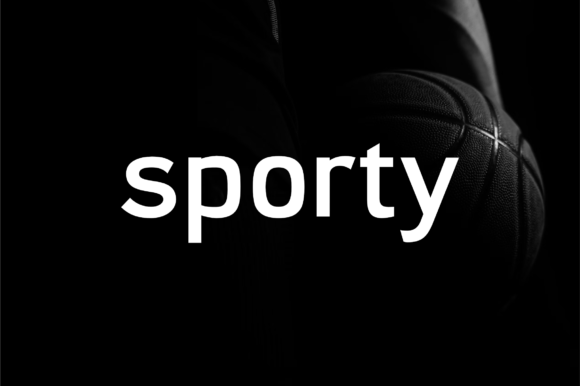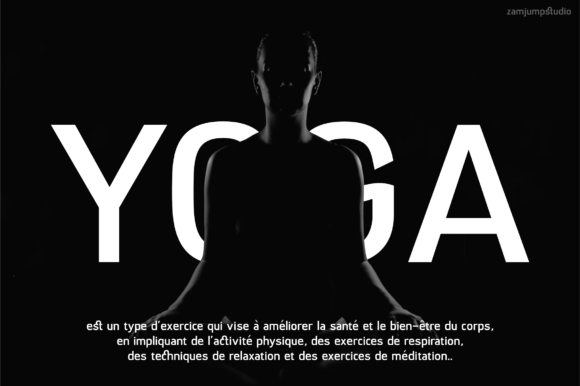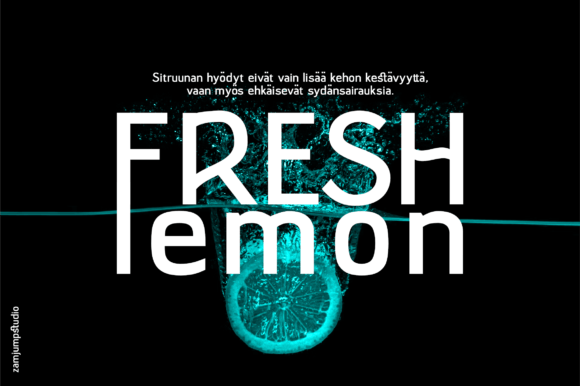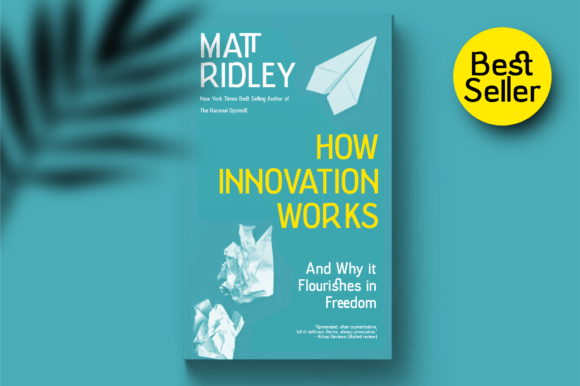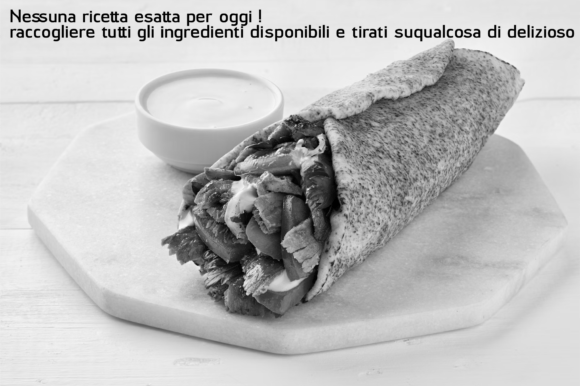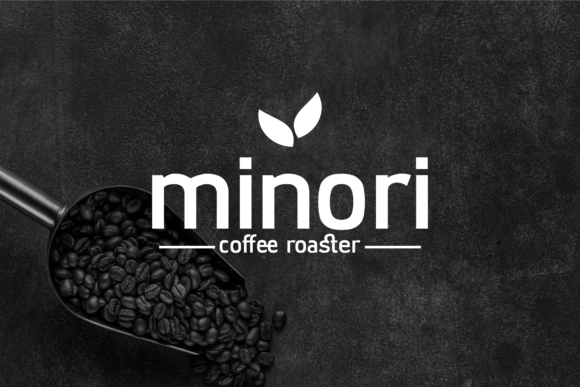
Bricensa Font: Elevate Your Design Projects with Modern Elegance
In the world of typography, a font can make all the difference in the success of a design project. A well-crafted font can elevate your brand, capture attention, and convey your message with precision. Introducing Bricensa, a sophisticated modern sans serif display font designed to bring a perfect blend of contemporary aesthetics and timeless elegance to your design endeavors.
The Design Philosophy of Bricensa
Bricensa is meticulously crafted to embody the best of modern design while maintaining a sense of classic sophistication. Its sharp lines and smooth curves work in harmony to create a visually stunning typeface that is both versatile and impactful. The font’s sans serif design ensures a clean and minimalist look, making it perfect for a wide range of applications, from digital media to print.
Key Features of Bricensa
- Modern Aesthetics: Bricensa boasts a contemporary design that will instantly elevate your projects with a fresh and modern look.
- Timeless Elegance: Despite its modern appeal, Bricensa maintains a sense of timeless elegance, ensuring your designs remain relevant for years to come.
- Versatility: This font is designed to be versatile, making it suitable for a variety of design projects, including branding, headlines, posters, and editorial design.
- Impactful Headlines: With its sharp lines and smooth curves, Bricensa is perfect for creating impactful headlines that capture attention and convey your message with precision.
- Sleek Logos: Bricensa’s clean and minimalist design makes it an excellent choice for creating sleek and sophisticated logos that represent your brand with elegance.
Applications of Bricensa
Bricensa’s versatility makes it an excellent addition to any designer’s font collection. Here are some of the many applications where Bricensa shines:
- Branding: Use Bricensa to create a strong and memorable brand identity that stands out in a crowded market.
- Headlines: Create impactful headlines that capture attention and convey your message with precision.
- Posters: Bricensa’s bold and elegant design makes it perfect for creating stunning posters that grab attention.
- Editorial Design: Use Bricensa to add a touch of sophistication and elegance to your editorial designs, including magazines, newspapers, and books.
Why Choose Bricensa?
With so many fonts available, why choose Bricensa? Here are a few compelling reasons:
- Unique Design: Bricensa’s unique blend of modern aesthetics and timeless elegance sets it apart from other fonts.
- Versatility: Bricensa’s versatility makes it suitable for a wide range of design projects, from digital media to print.
- Ease of Use: Bricensa is easy to use and pairs well with a variety of other fonts, making it a great addition to any design project.
In conclusion, Bricensa is a sophisticated modern sans serif display font that is sure to elevate your design projects with its perfect blend of contemporary aesthetics and timeless elegance. Its versatility, impact, and ease of use make it an excellent addition to any designer’s font collection. Whether you’re looking to create impactful headlines, sleek logos, or stunning posters, Bricensa is the perfect choice. Embrace modern elegance with Bricensa and make a lasting impression in all your design endeavors.